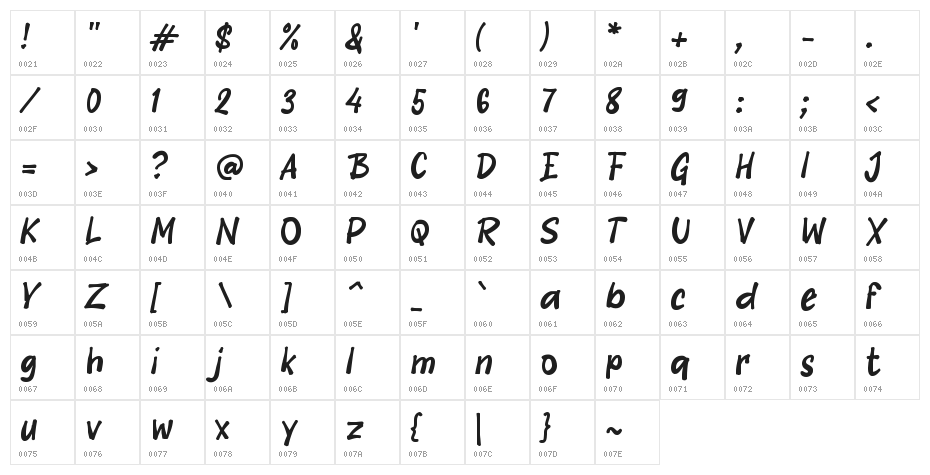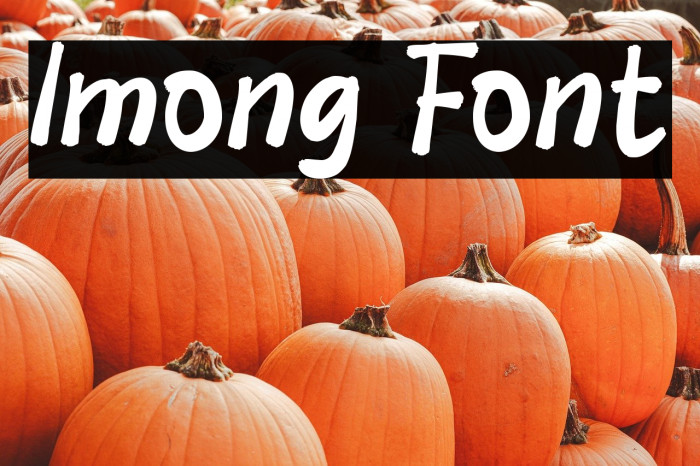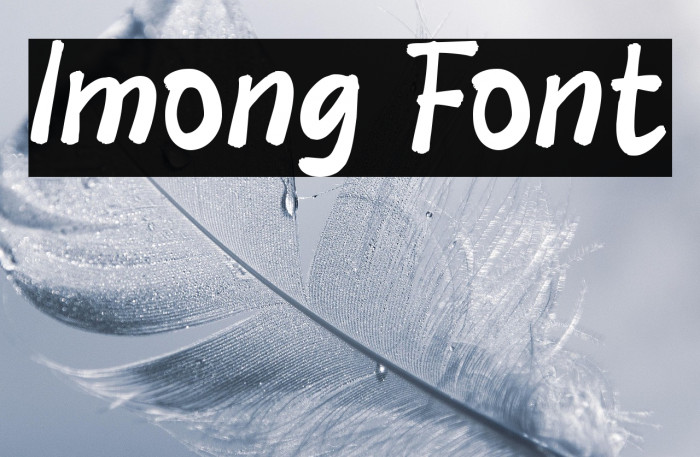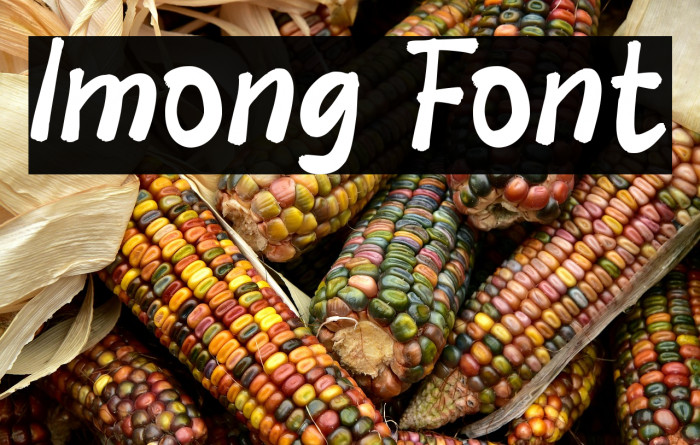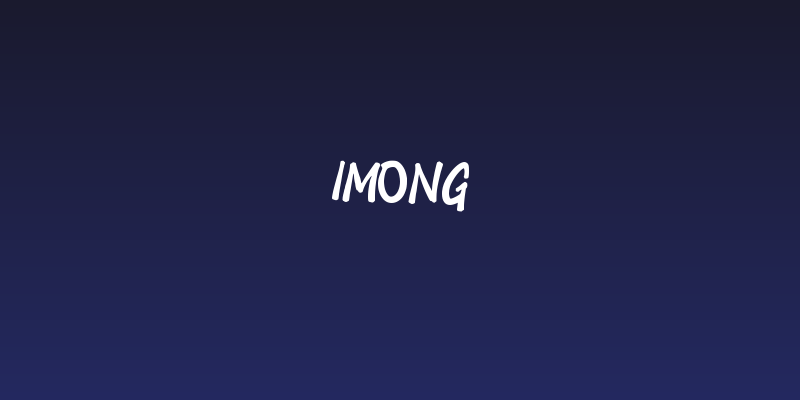
Imong Font
Imong Description
This font features a bold, handwritten style with a playful and energetic appearance. The characters are slightly slanted, giving a dynamic and informal feel. The strokes are thick and consistent, providing a strong visual impact. The uppercase and lowercase letters maintain a cohesive style, while the numerals and special characters complement the overall design. This font's casual and friendly look makes it suitable for projects that require a personal touch.
| Overall Style | Casual |
| Use Case | Headlines, Logos, Informal Text |
| Proposed Projects | Ideal for greeting cards, invitations, posters, and social media graphics. |